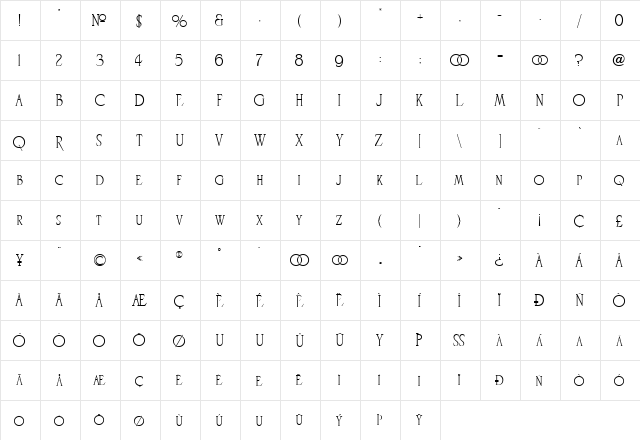
LHF Stetson Regular
Design Context for LHF Stetson Typeface
LHF Stetson offers clean, dependable letterforms without strong stylistic allegiance, making it a practical choice for designers who need flexibility.